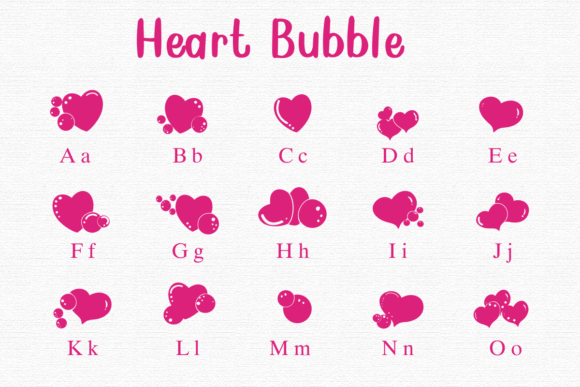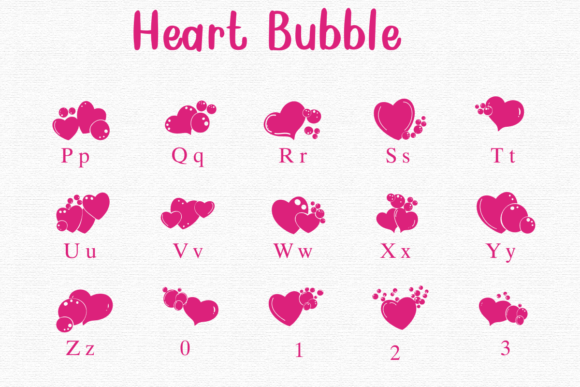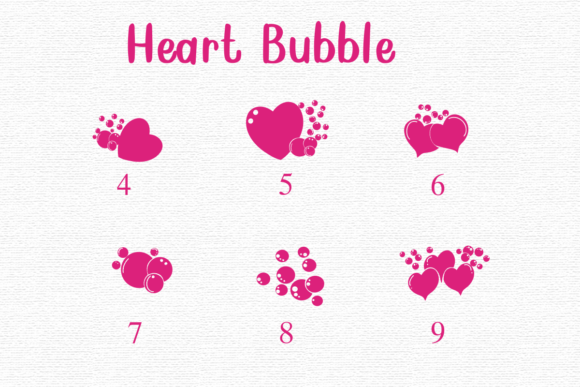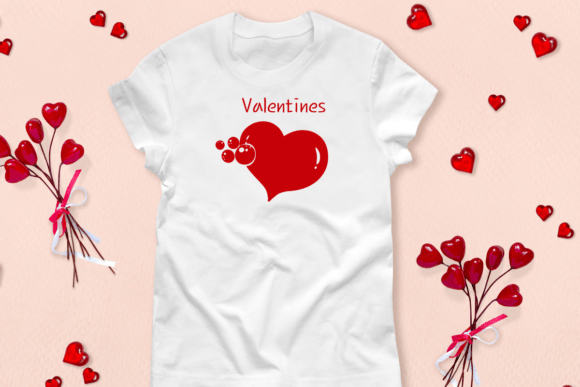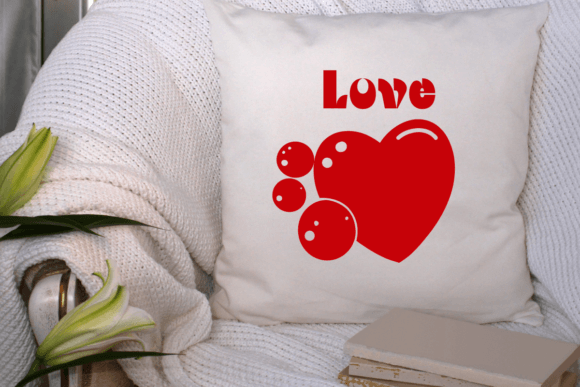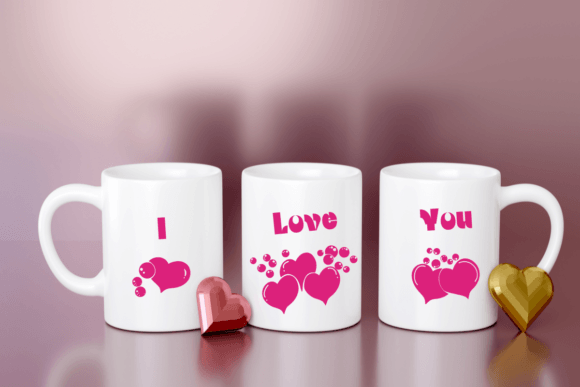
Introduction to Heart Bubble Font
Heart bubble isf a dingbats font with a romatic theme.
This font can enhance your creative projects such as wedding invitations, DIY, crafts, decorations, logos, and many other creative ideas .
Key Features of Heart Bubble Font
Why Choose Heart Bubble Font?
Heart Bubble Font offers exceptional quality and versatility, making it a valuable addition to your design toolkit. Whether you’re creating for personal projects or commercial use, Heart Bubble Font delivers professional results.